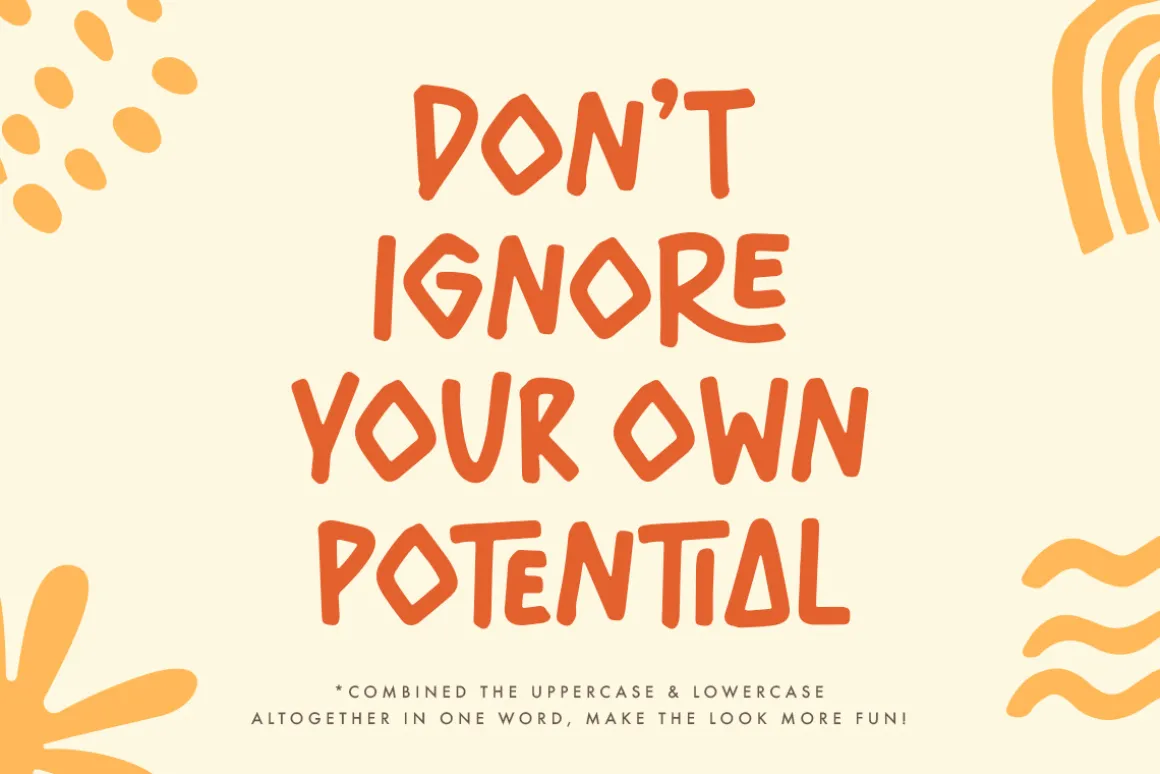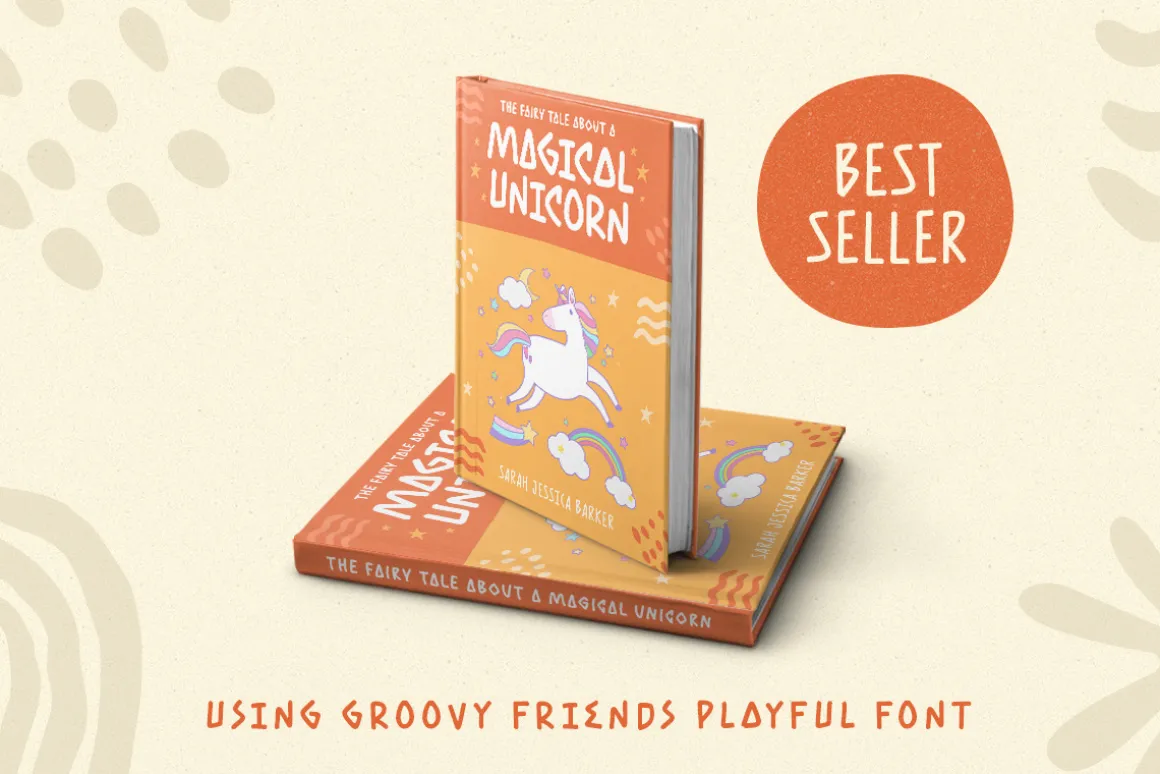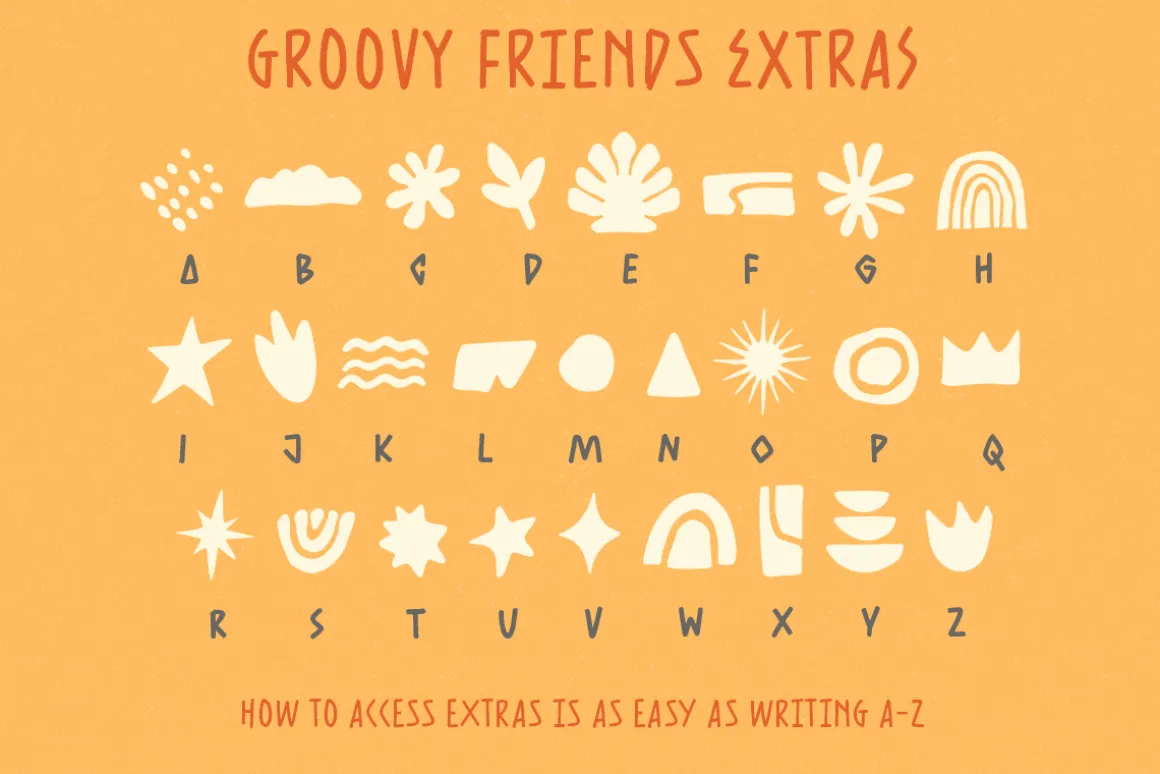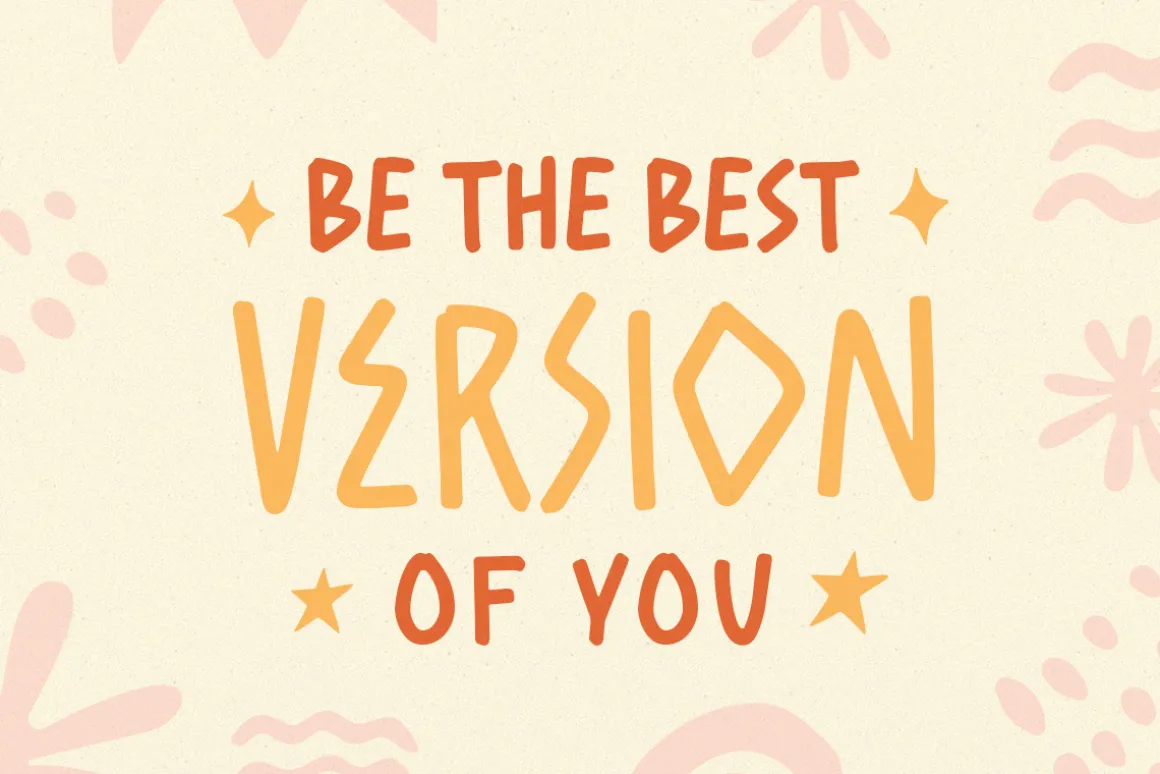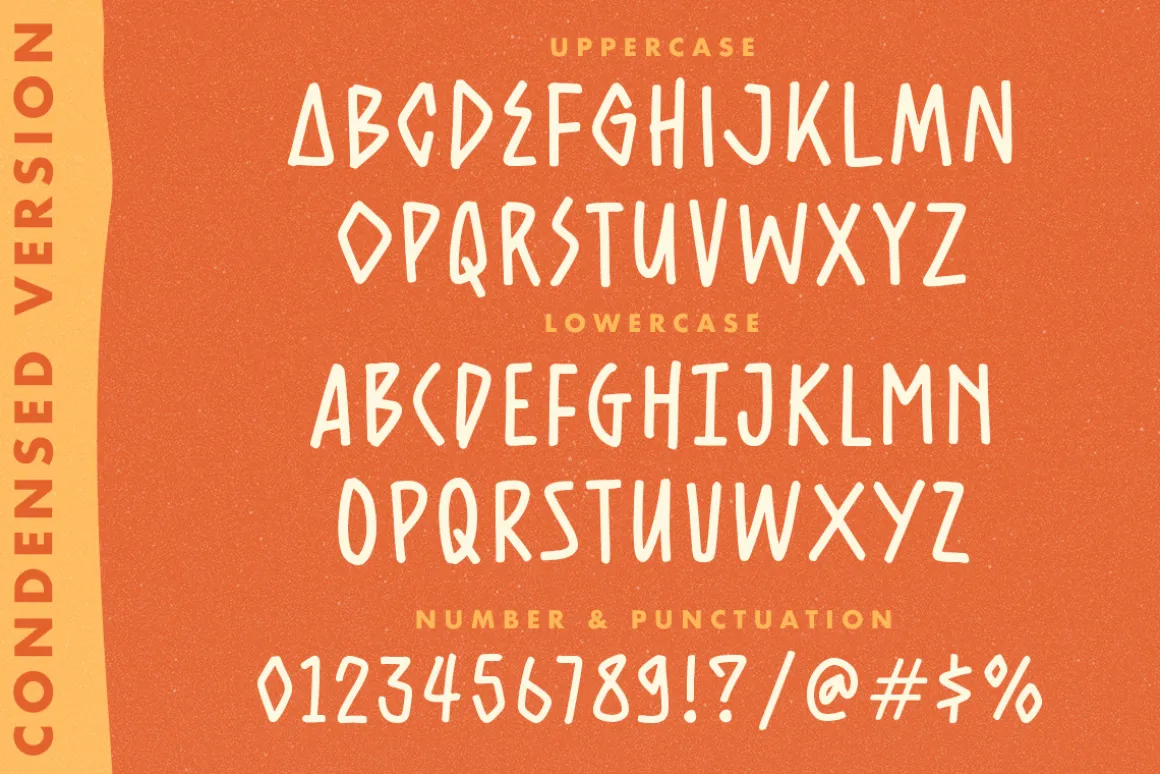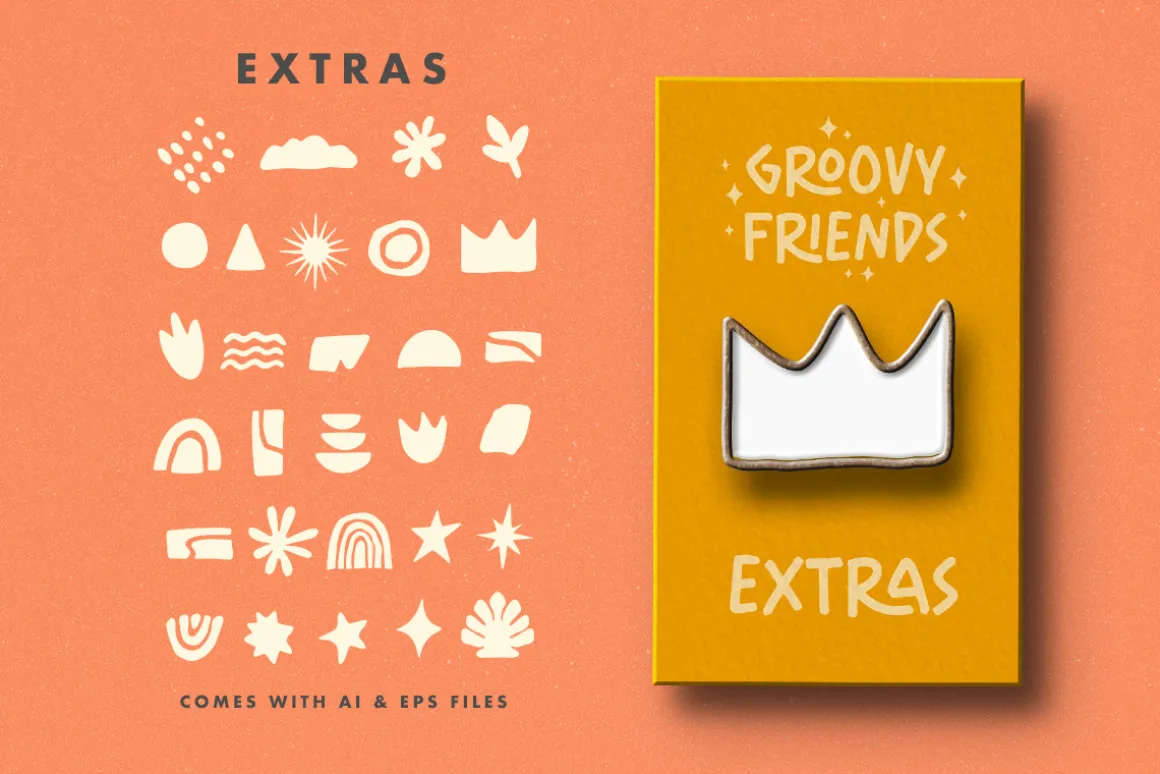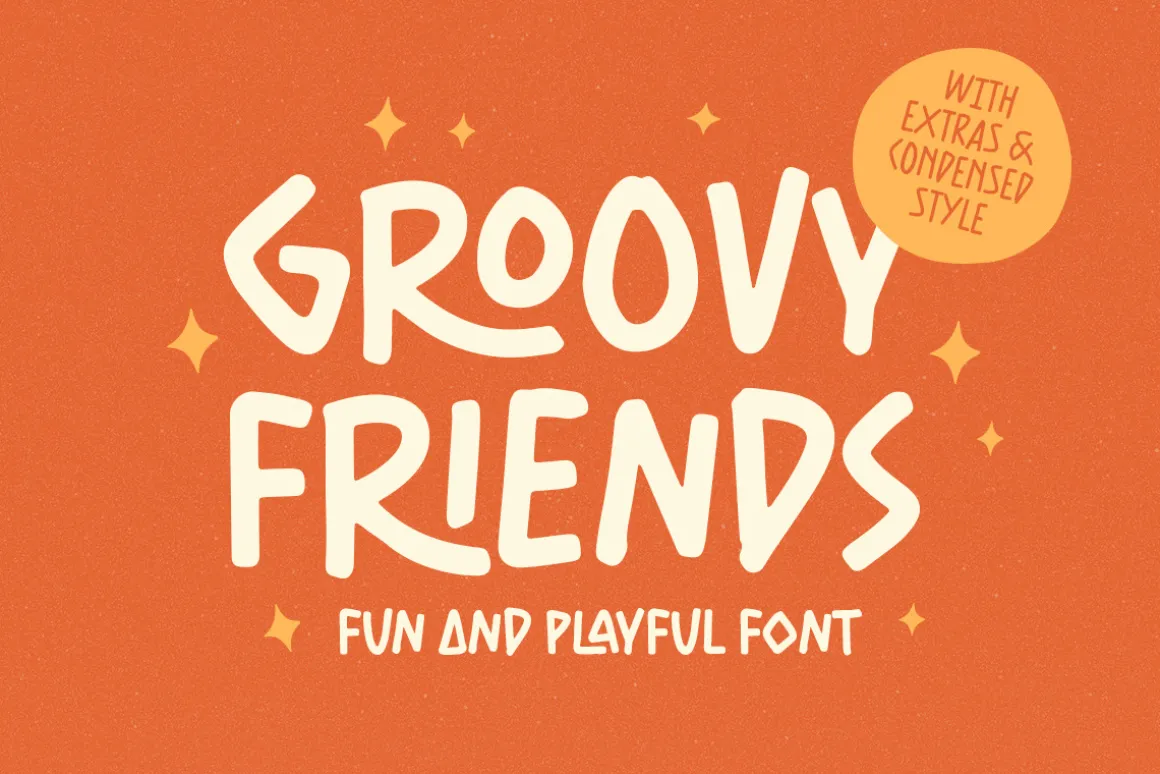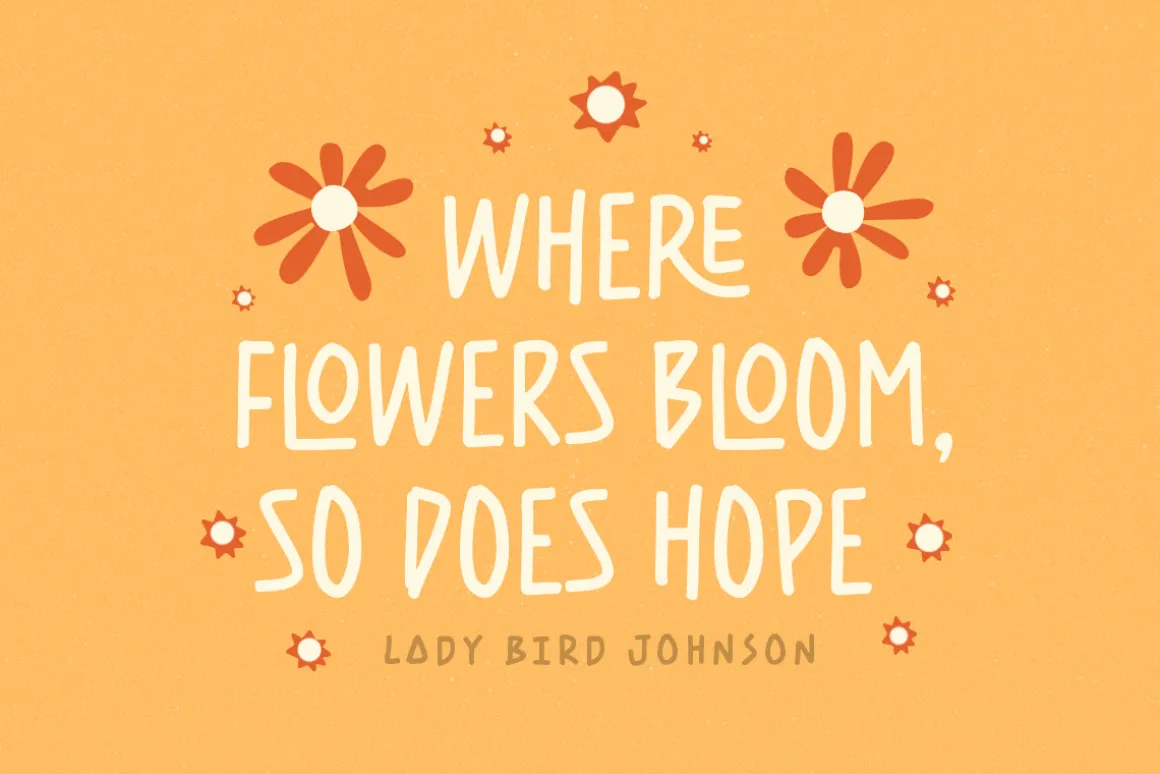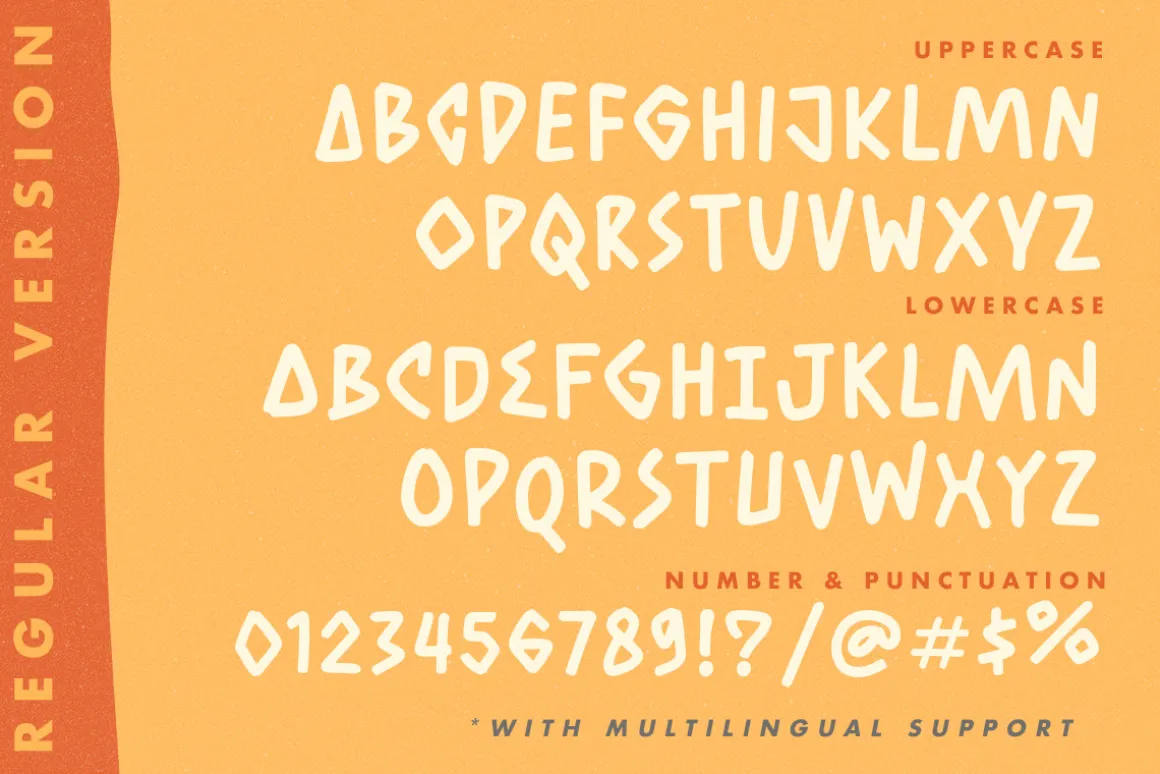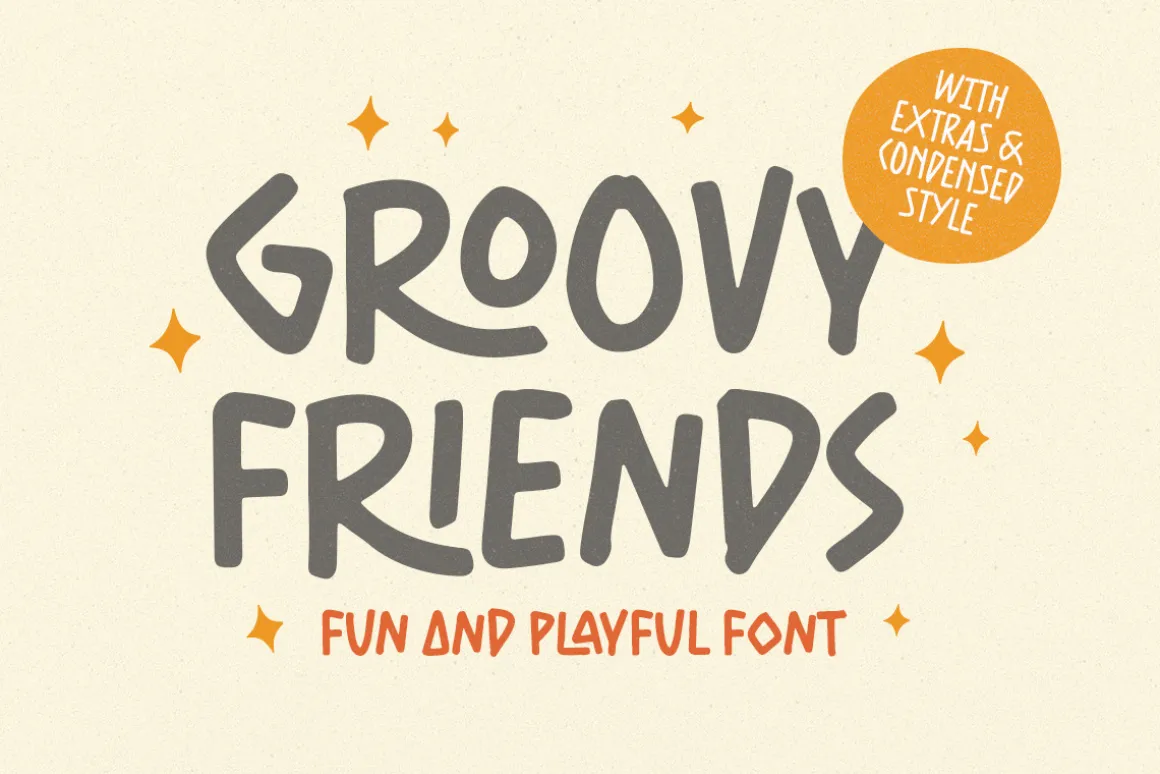
Groovy friends is a typeface with fun and playful looks. Available in two types, regular version and version with doodle dingbats as extra! This type of font perfectly made to be applied especially in storybook children or child theme which is need a standout font, and the other various formal forms such as invitations, labels, logos, magazines, books, greeting / wedding cards, packaging, fashion, make up, stationery, novels, labels or any type of advertising purpose.
- Doodle dingbats
- numbers and punctuation
- multilingual
- ligatures